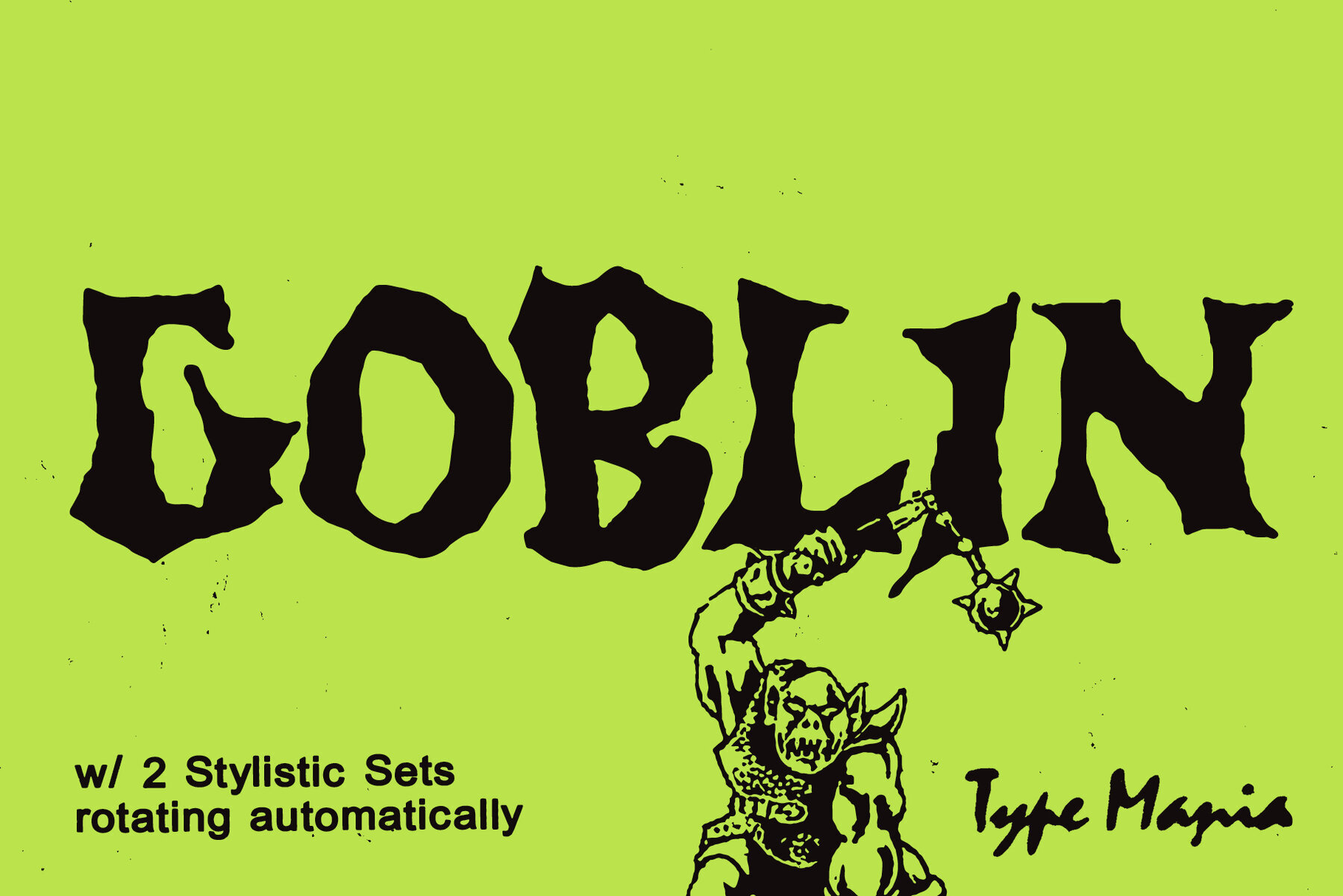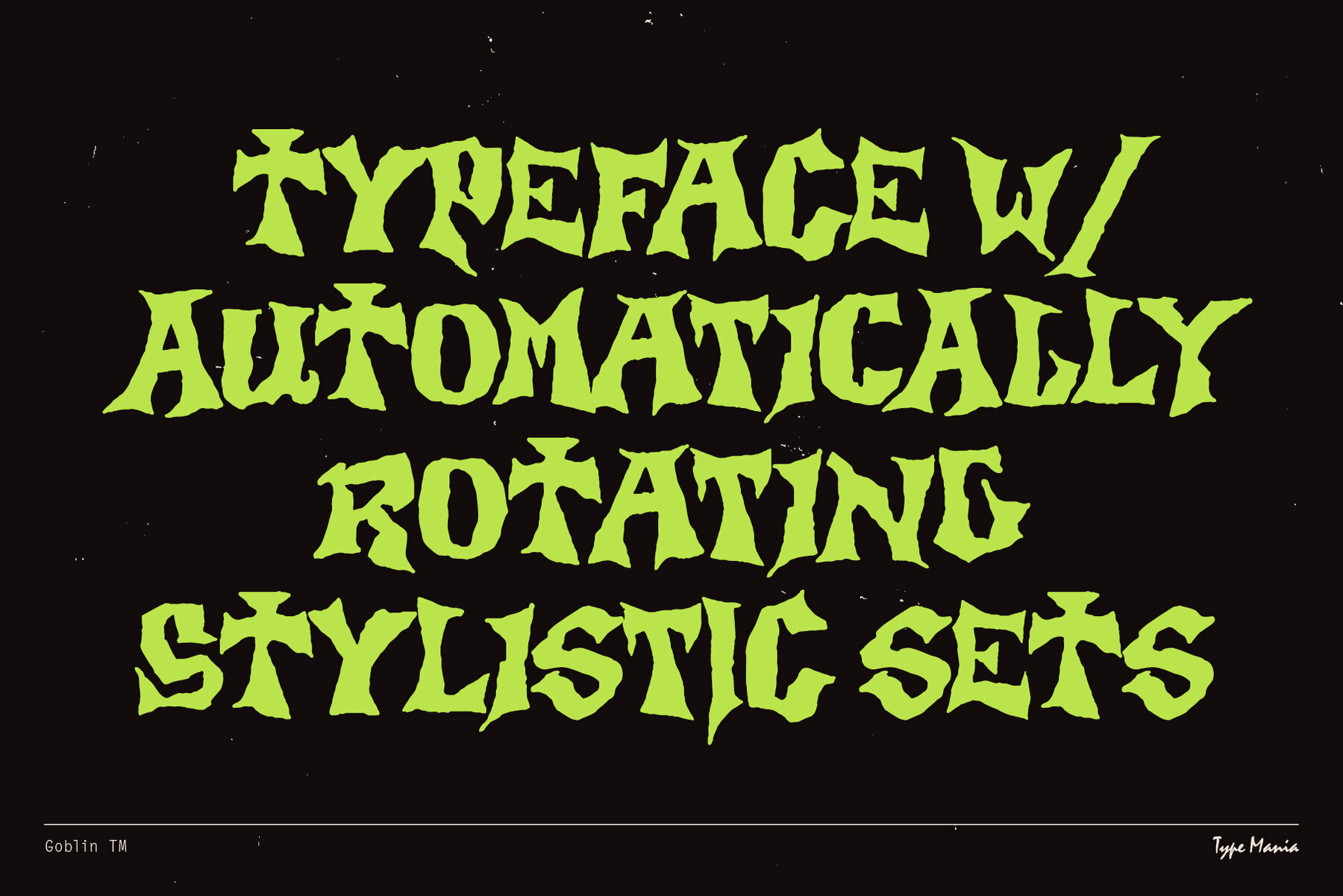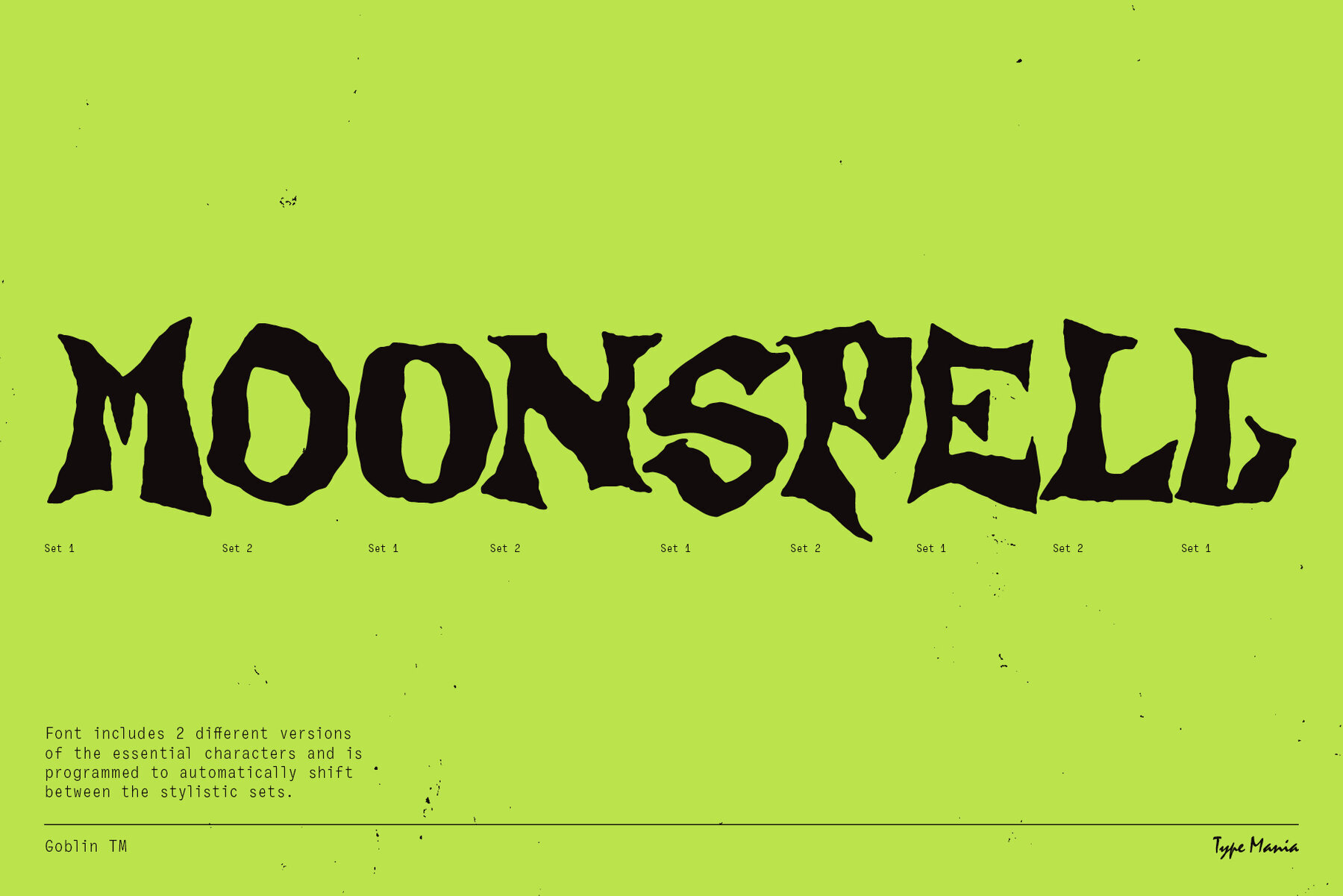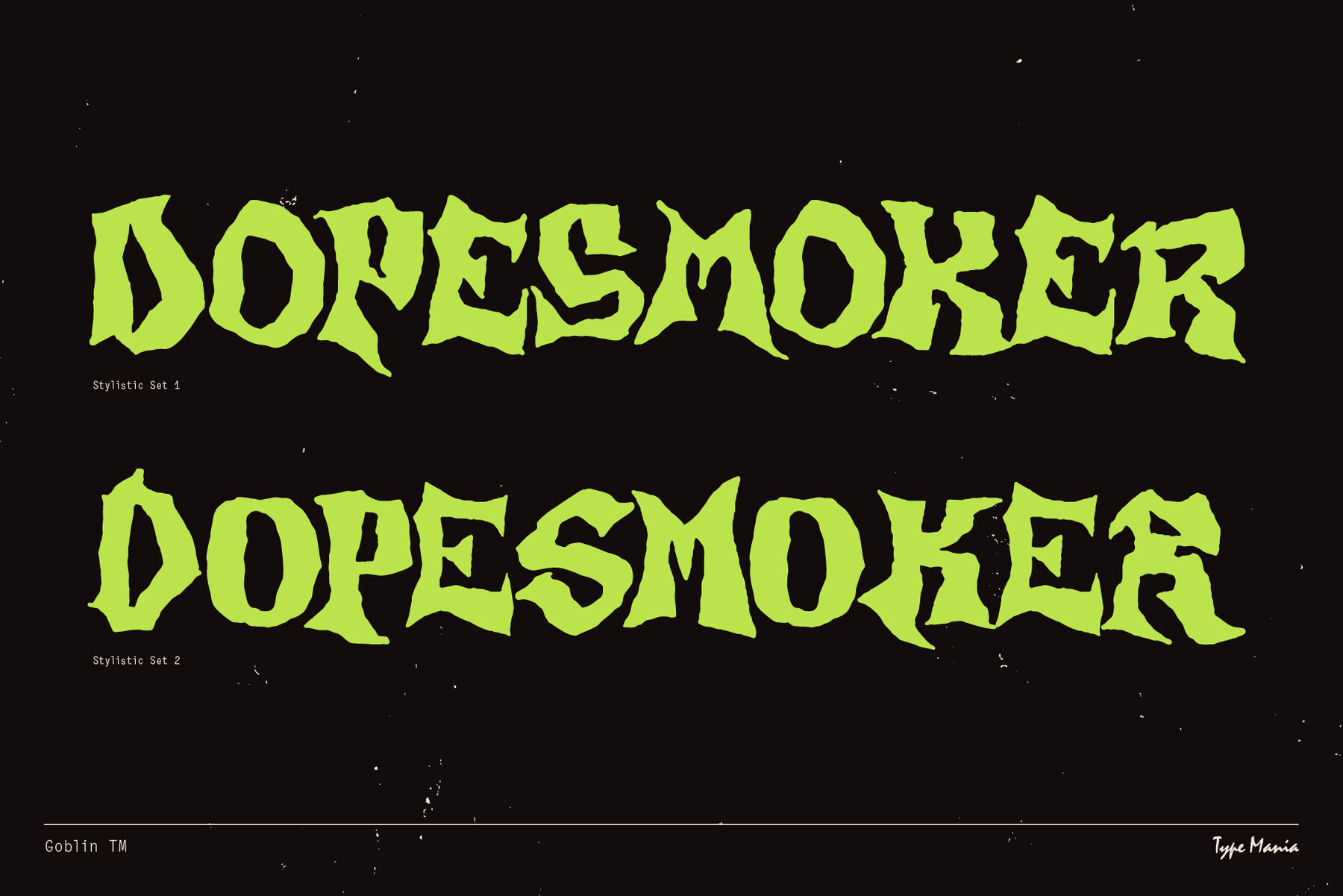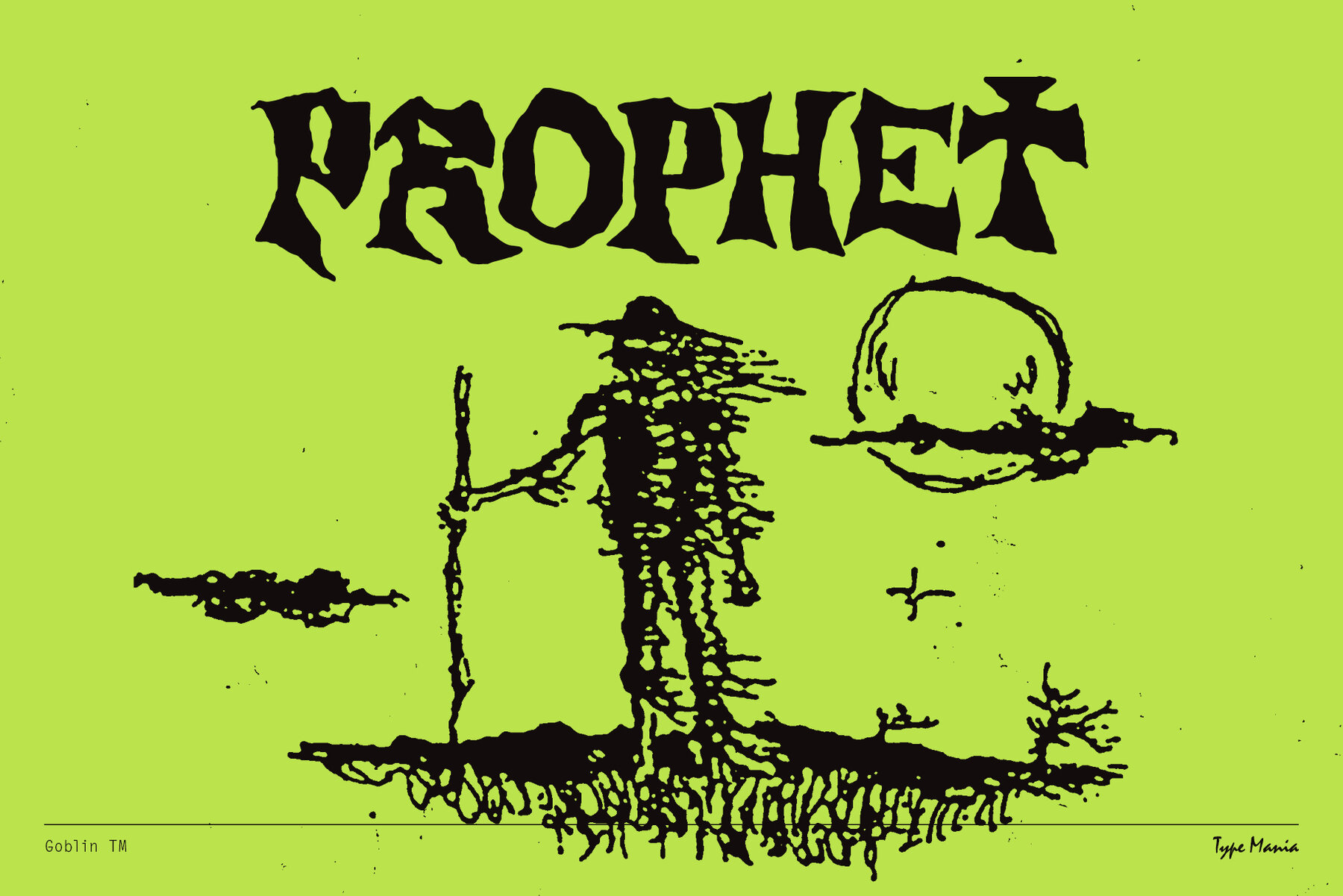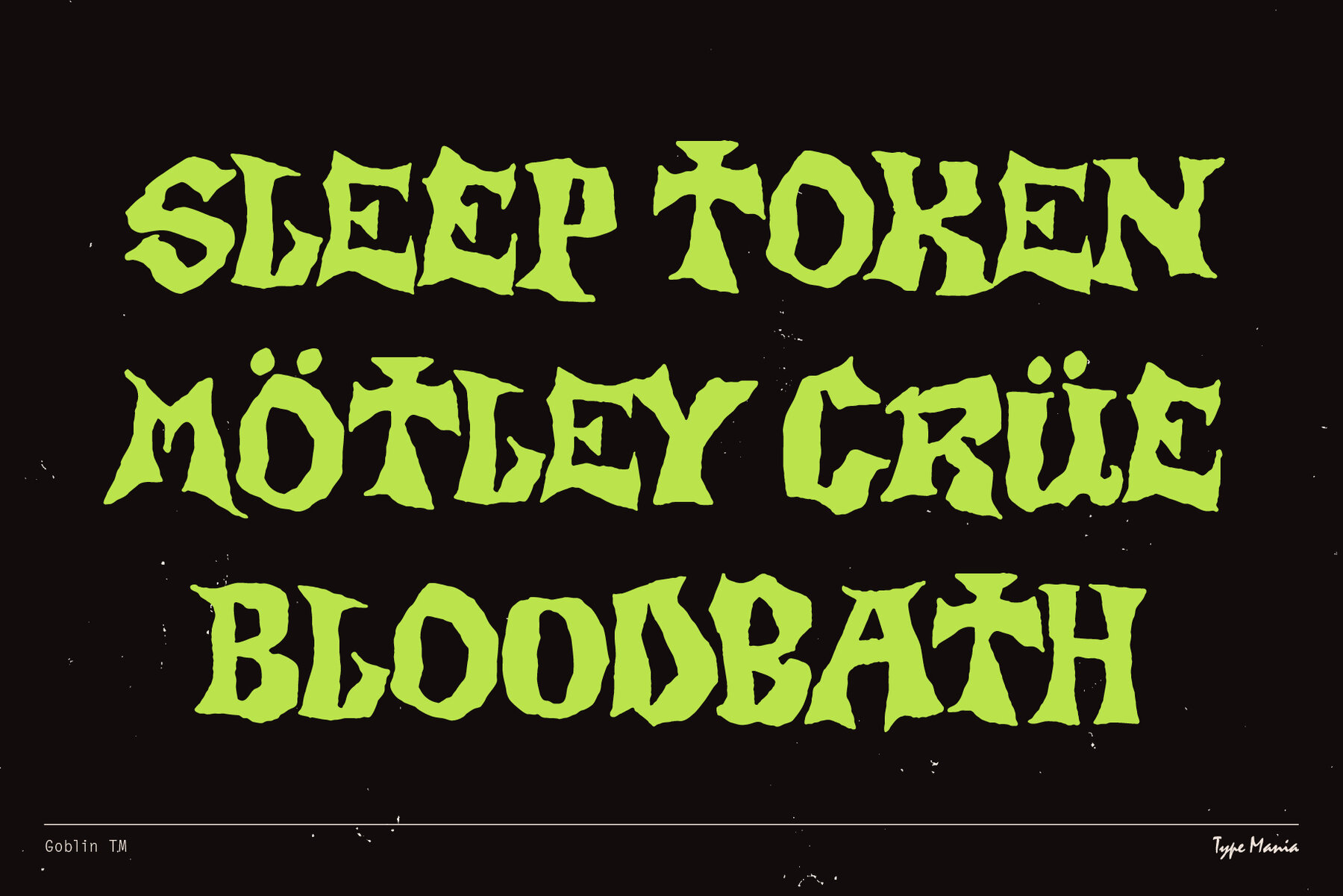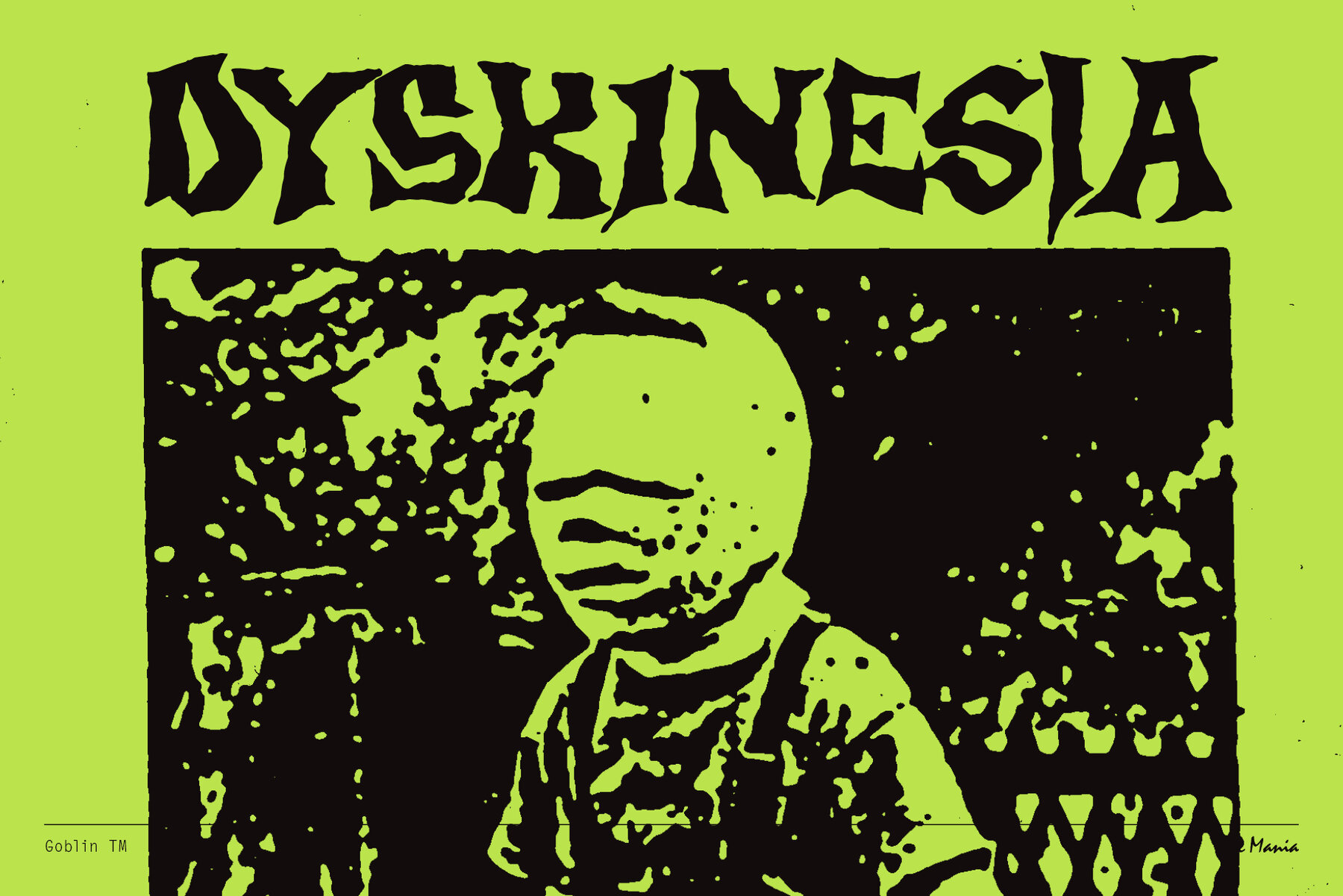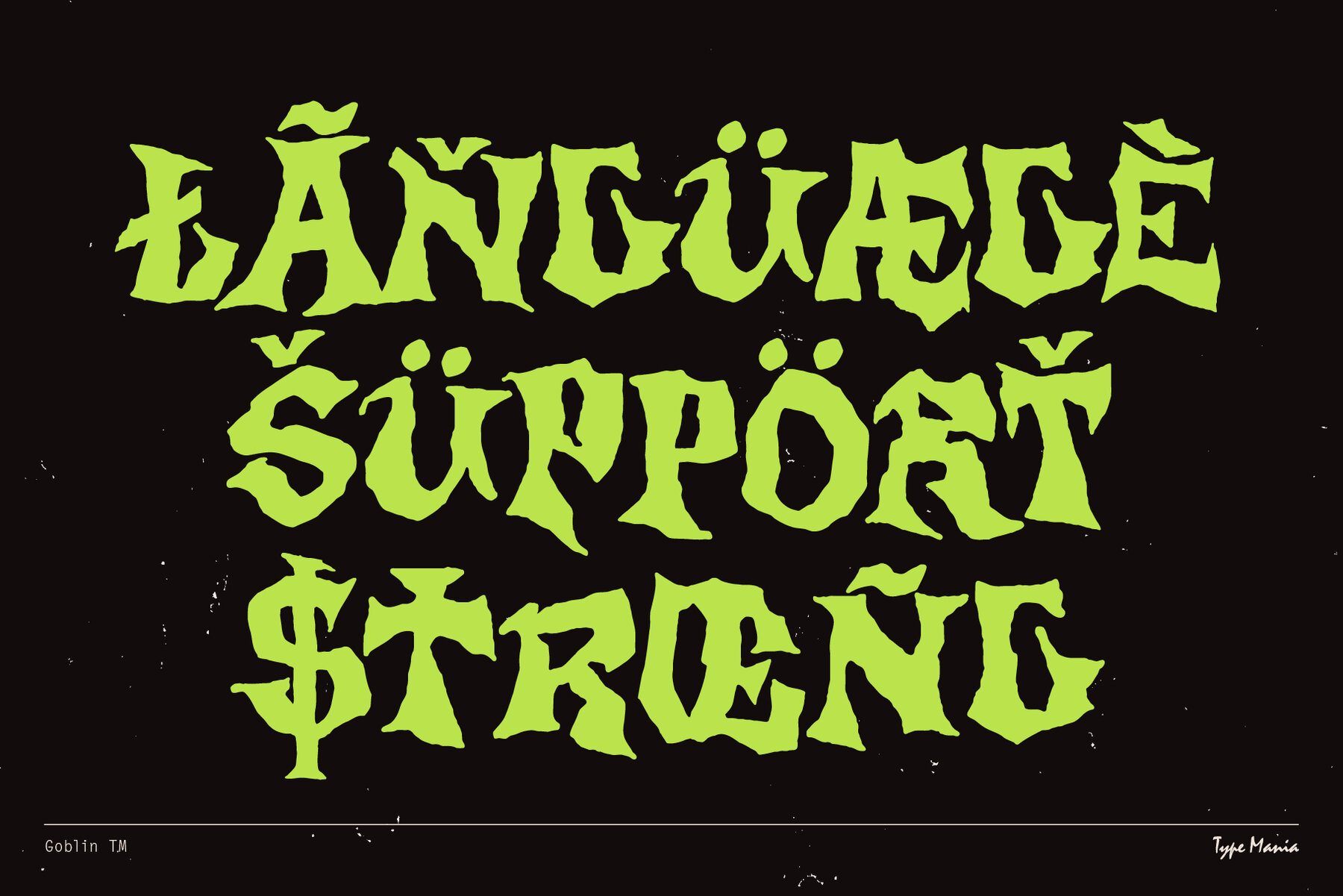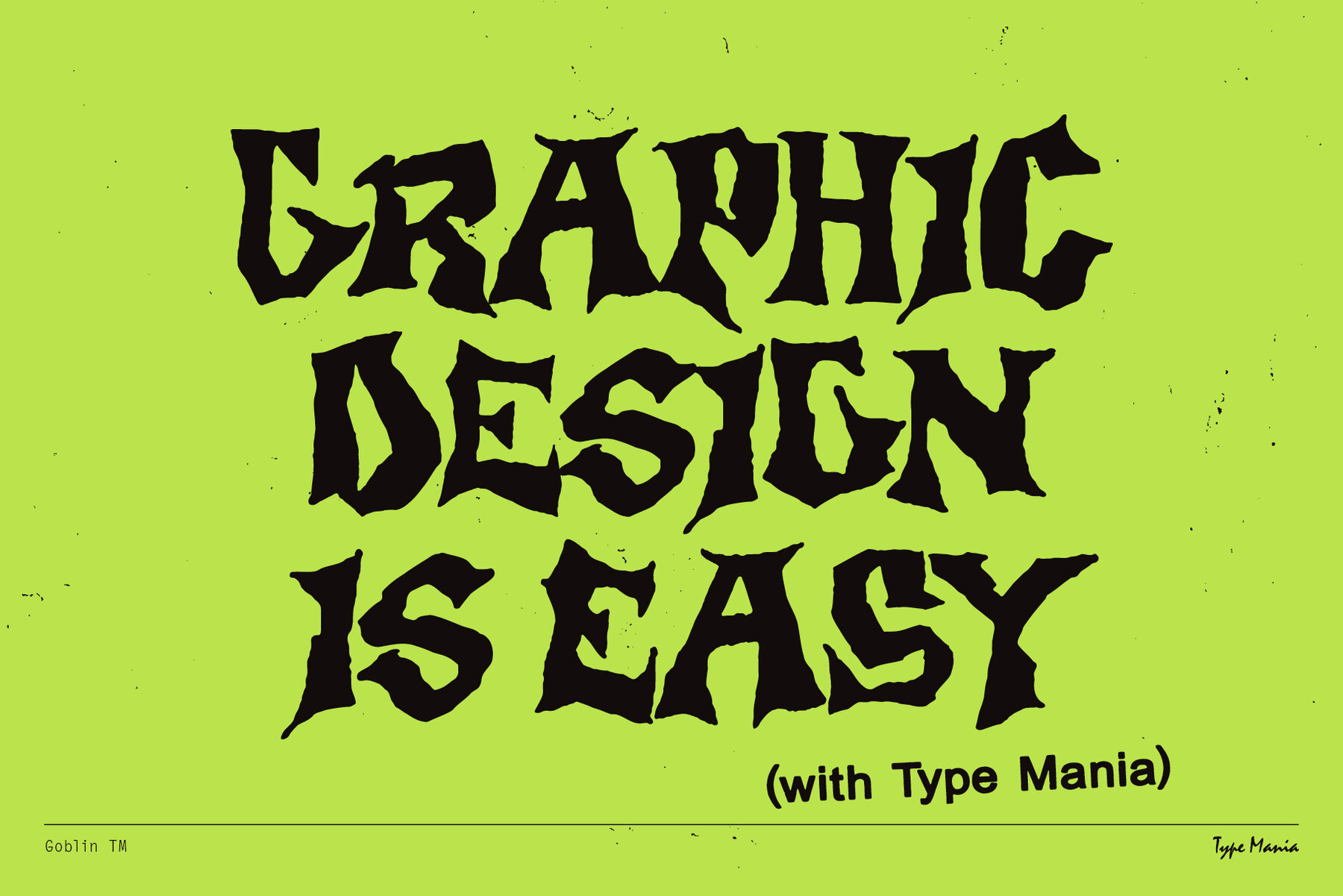
Goblin TM Font
Goblin TM Regular
Enter the doom & gloom with the macabre Goblin TM? Whether you’re conjuring up album art, concert posters, or crafting a wicked logo, Goblin TM delivers with its bold, jagged lines and unholy curves. Two stylistic sets rotate automatically, all but guaranteeing an organic, soulful outcome. Give it a try [Happy Halloween, fam] OpenType features Languages Graphic Design is Easy (with Type Mania)®